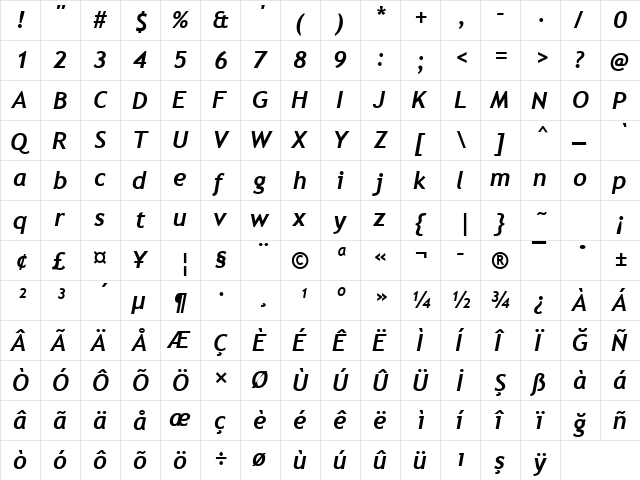
Trebuchet MS Digiscream Bold Italic Font Preview
Design Context for Trebuchet MS Digiscream Typeface
Trebuchet MS Digiscream takes a measured approach to typography — its balanced proportions and neutral character make it a reliable workhorse for both digital and print work. The dynamic lean of this cut emphasises speed and emphasis in any layout. Its bold stroke weight gives it real presence on the page.
Pro Tip: Try Trebuchet MS Digiscream for annotation and caption copy alongside an upright companion — the contrast in angle creates a dynamic but ordered typographic system.